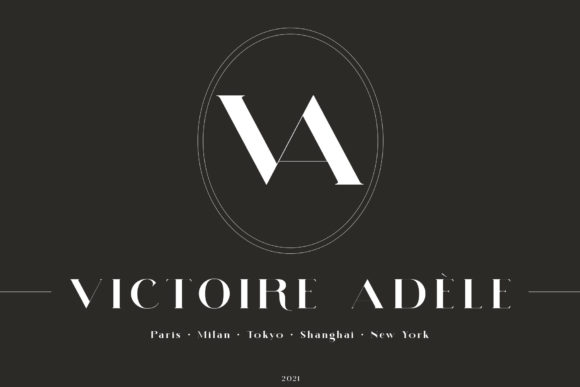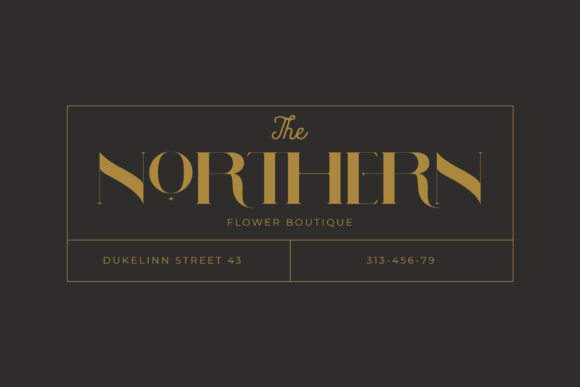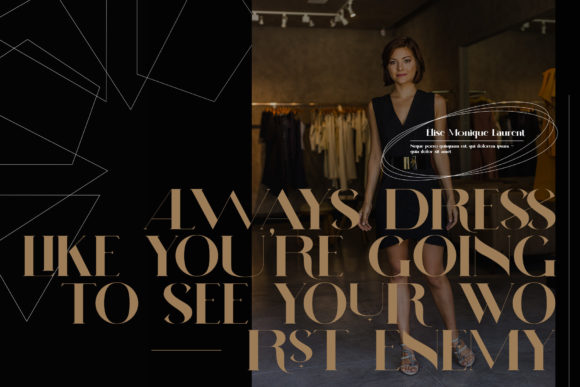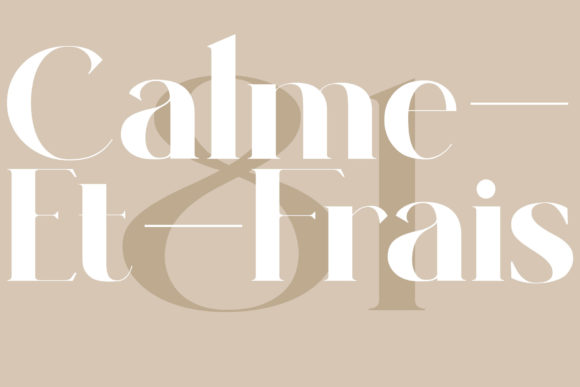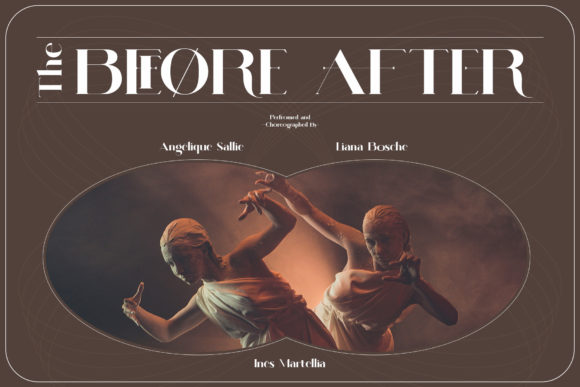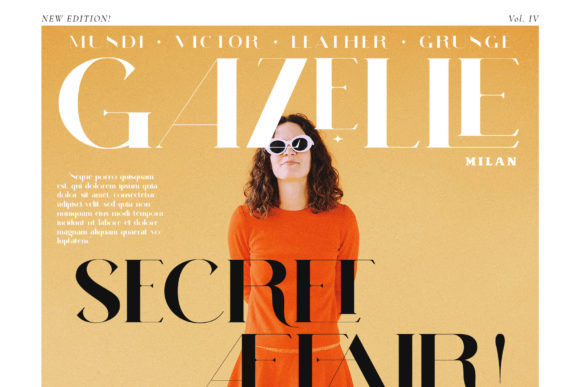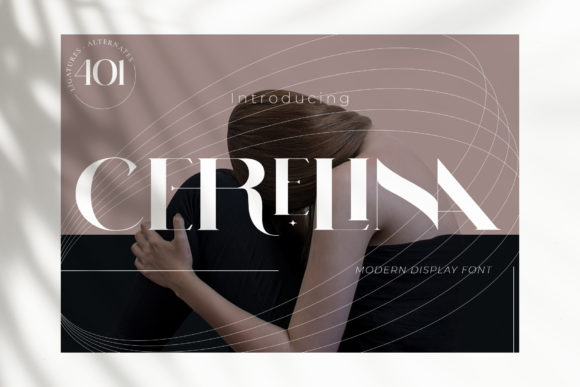
Cerelina Font: Elevate Your Designs with a Stylish and Assertive Serif Font
Are you looking for a font that can add a touch of elegance and sophistication to your designs? Look no further than Cerelina Font. This stylish, distinct, and assertive serif font is perfect for designers and crafters who want to create stunning labels, branding, and titles. In this article, we’ll take a closer look at Cerelina Font and explore its features, benefits, and uses.
What is Cerelina Font?
Cerelina Font is a beautifully crafted serif font that exudes confidence and style. Its unique design makes it stand out from other fonts, and its versatility ensures that it can be used in a variety of design projects. Whether you’re creating labels, branding, or titles, Cerelina Font is the perfect choice.
Key Features of Cerelina Font
Cerelina Font comes with several key features that make it a must-have for designers and crafters. Some of its notable features include:
- PUA Encoding: Cerelina Font is PUA encoded, which means that you can access all of the glyphs and swashes with ease. This makes it easy to use and customize the font to suit your design needs.
- Stylish and Distinct Design: Cerelina Font has a unique and stylish design that sets it apart from other serif fonts. Its assertive style makes it perfect for creating bold and eye-catching designs.
- Serif Font: As a serif font, Cerelina Font features small lines or flourishes at the ends of its strokes. This gives it a classic and sophisticated look that’s perfect for creating elegant designs.
Benefits of Using Cerelina Font
There are several benefits to using Cerelina Font in your designs. Some of the most notable benefits include:
- Elegance and Sophistication: Cerelina Font adds a touch of elegance and sophistication to any design. Its stylish and distinct design makes it perfect for creating high-end designs.
- Versatility: Cerelina Font is versatile and can be used in a variety of design projects, from labels and branding to titles and more.
- Easy to Use: With its PUA encoding, Cerelina Font is easy to use and customize. You can access all of the glyphs and swashes with ease, making it simple to create unique and creative designs.
Uses of Cerelina Font
Cerelina Font is perfect for a variety of design projects, including:
- Labels: Cerelina Font is perfect for creating labels that require a touch of elegance and sophistication. Its stylish design makes it ideal for labeling products, packaging, and more.
- Branding: Cerelina Font is a great choice for branding projects, such as creating logos, business cards, and letterheads. Its assertive style makes it perfect for creating bold and eye-catching designs.
- Titles: Cerelina Font is perfect for creating titles for books, magazines, and other publications. Its elegant design makes it ideal for creating sophisticated and eye-catching titles.
Tips for Using Cerelina Font
Here are some tips for using Cerelina Font in your designs:
- Experiment with Different Sizes: Cerelina Font looks great in a variety of sizes. Experiment with different sizes to find the one that works best for your design.
- Pair it with Other Fonts: Cerelina Font pairs well with other fonts. Try pairing it with a sans-serif font for a bold and eye-catching design.
- Use it for Headlines: Cerelina Font is perfect for creating bold and eye-catching headlines. Use it to grab the attention of your audience and draw them into your design.
Cerelina Font is a stylish, distinct, and assertive serif font that’s perfect for designers and crafters who want to create stunning labels, branding, and titles. With its PUA encoding, elegant design, and versatility, Cerelina Font is a must-have for any designer or crafter looking to elevate their designs. Whether you’re creating labels, branding, or titles, Cerelina Font is the perfect choice.